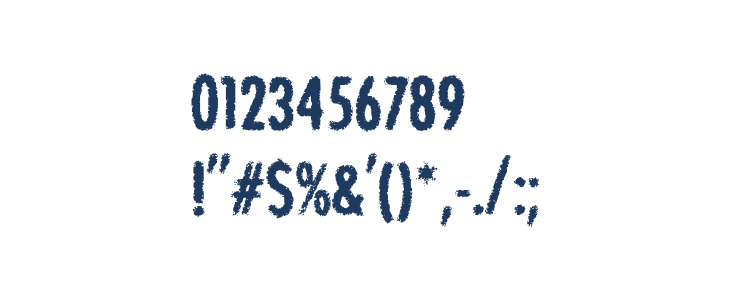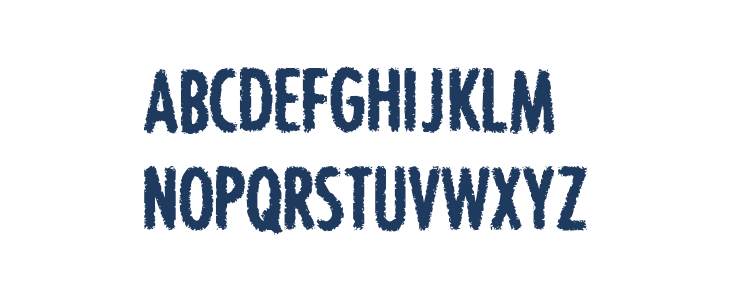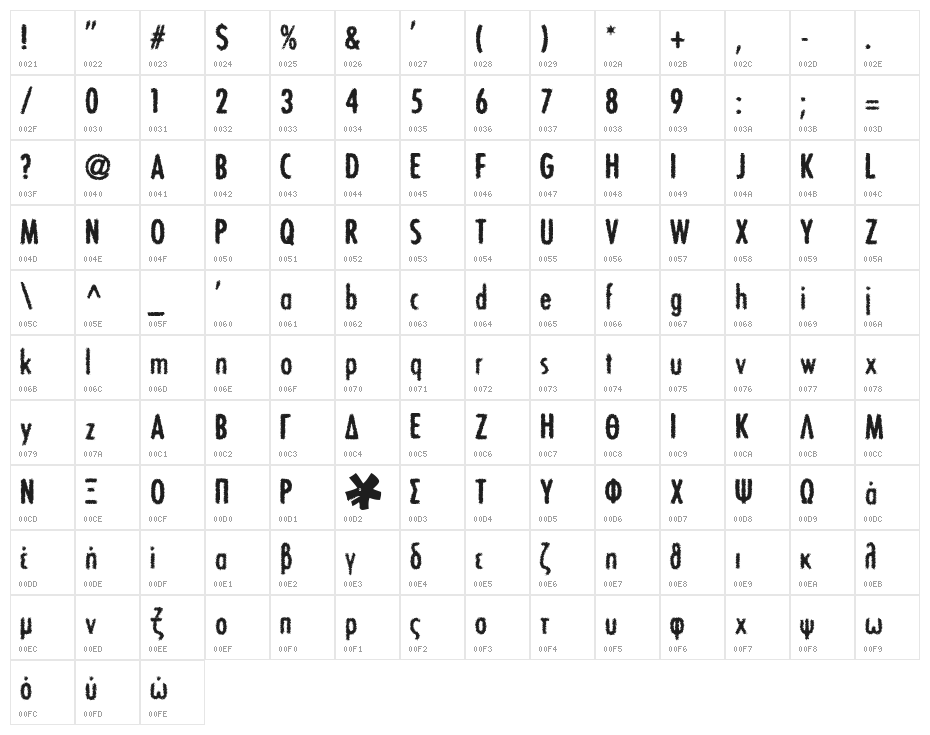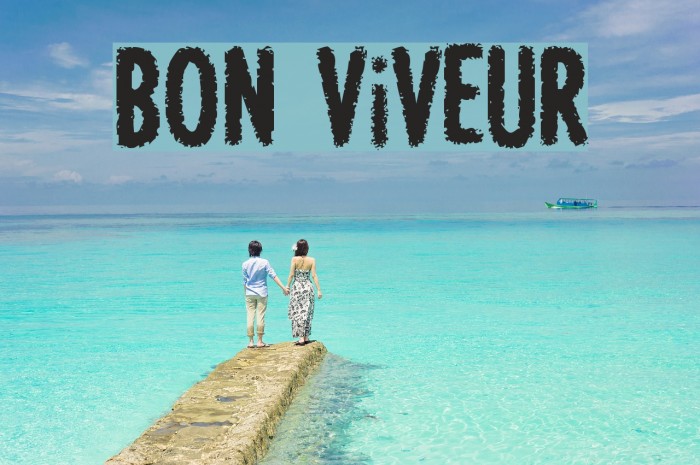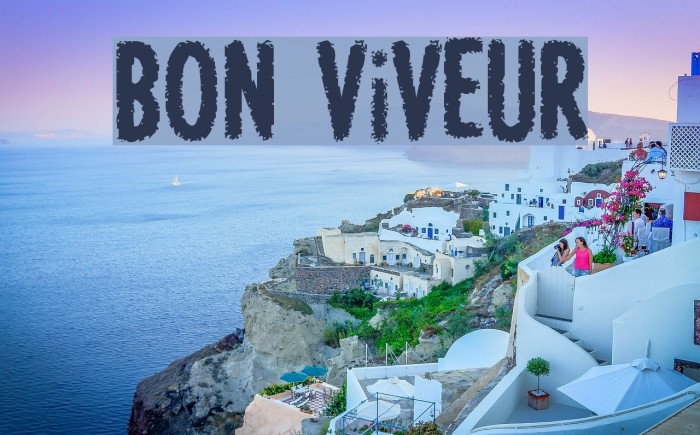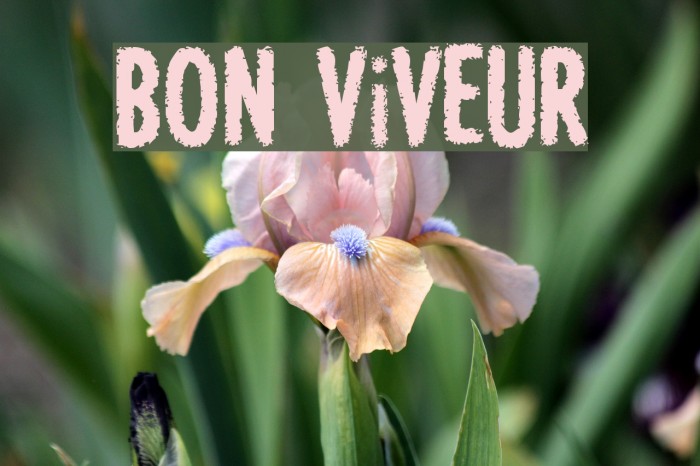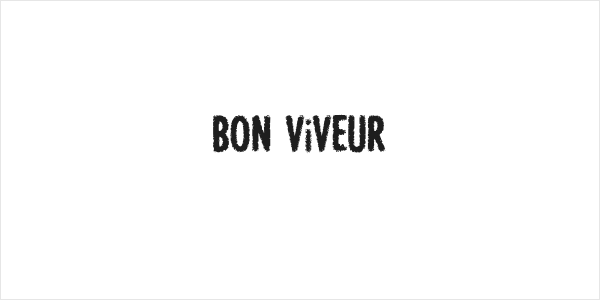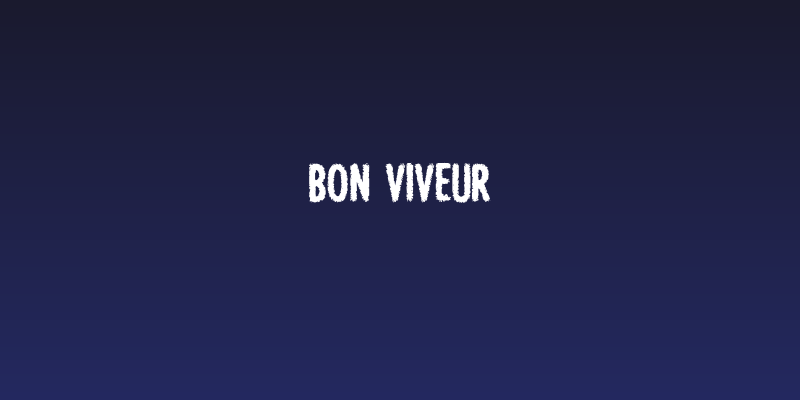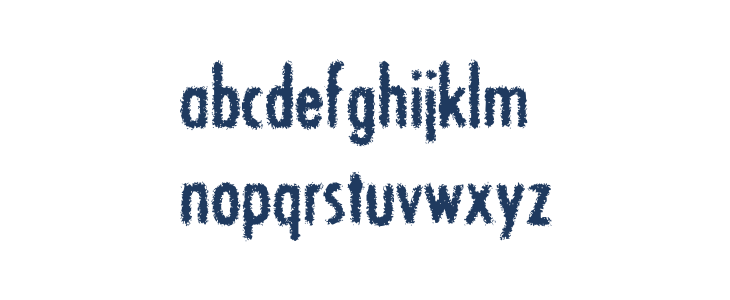
BON ViVEUR Font
BON ViVEUR Description
This font features a bold and textured appearance, reminiscent of a rough, hand-painted style. The characters are robust and slightly irregular, giving them a dynamic and energetic feel. The uppercase and lowercase letters maintain a consistent height, while the numbers and special characters are equally bold and textured. This font's unique style makes it stand out, with a playful yet assertive presence that captures attention.
| Proposed Projects | Ideal for posters, branding, and creative projects that require a bold statement. |